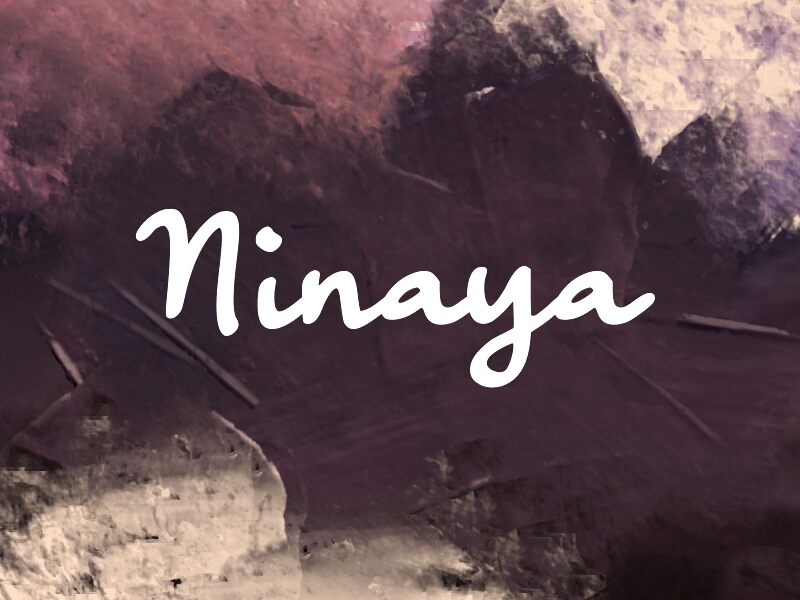
Ninaya font designed by wep is a limited free handwritten font with a friendly vibe. It instantly communicates a very personal message or a direct typed text that passes by as handwritten. Its lettering style begins with the sound foundations of this style to develop into a more informal contemporary typeface. A wide selection of ligatures helps produce dynamic automatic letter combinations that look more natural.
Ninaya is easy to use for turning long texts into handwritten texts. That can be for occasion invitations, letters, book pages, cards, or other types of documents. Use it for short phrases in a logo, packaging, or tagline. Titles, headlines, posters, and similar texts can all take advantage of the friendly approachable organization of the font.
Ninaya is a beautifully crafted free font that adds a touch of elegance to any design project. This font is perfect for branding, invitations, and a variety of creative applications. With its unique style and versatility, Ninaya allows for beautiful typography that stands out.